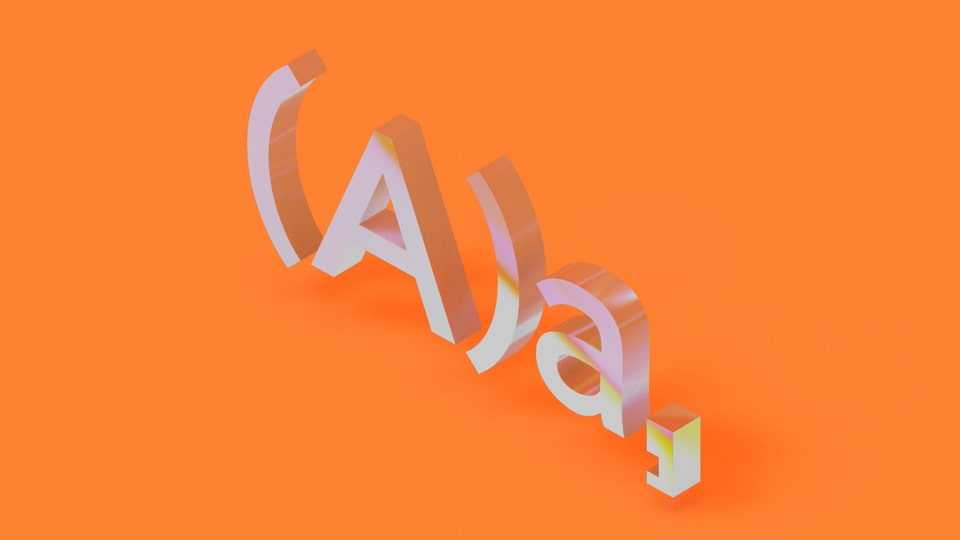
Download Lineyka font, a modern and versatile sans-serif typeface meticulously crafted for both printing and digital. Lineyka font designed with clean lines and balanced proportions, ensuring readability and versatility across various platforms.